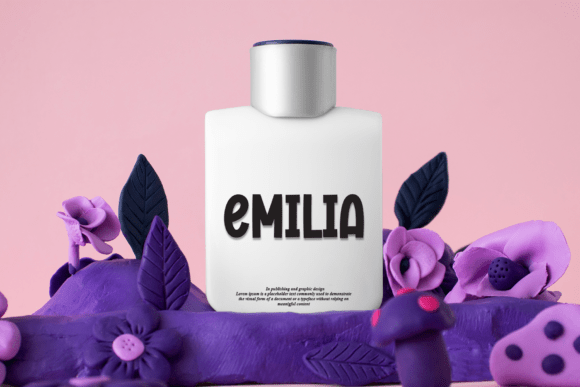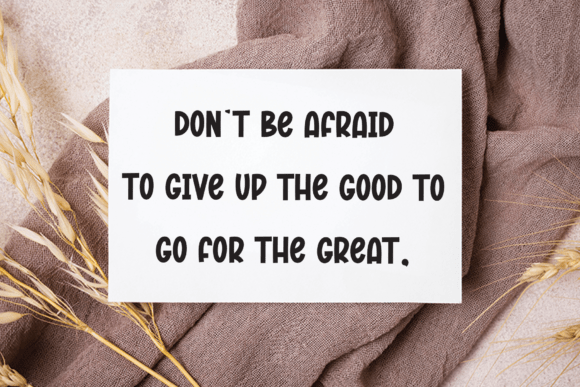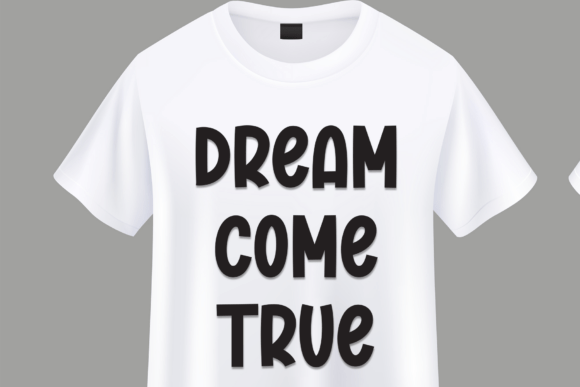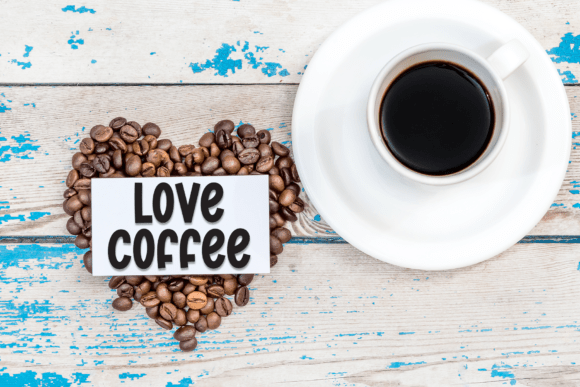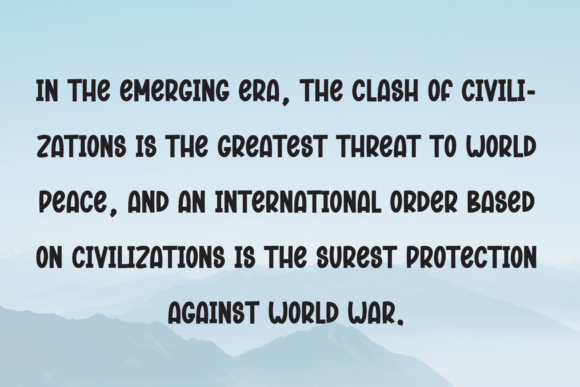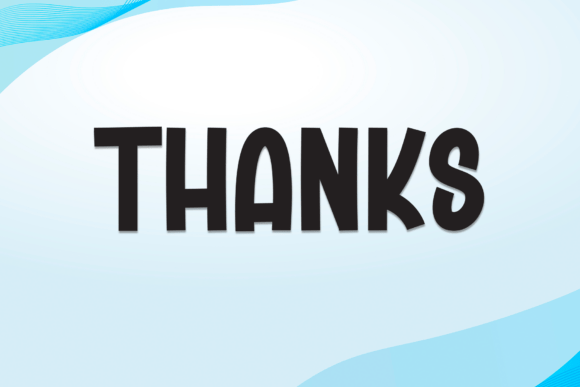
Introduction to Display Alphabet Font
Have you ever found yourself rummaging through your design stash, searching for the perfect font to elevate your next creative project? I’m sure we’ve all been there. For designers, the hunt for the perfect font can be a tedious task, but what if I told you that you’re just one click away from discovering the perfect design resource?
That’s where the Display Alphabet Font comes in – a stunning, free download that’s about to revolutionize your design game. With its natural, unique style, this font is an absolute game-changer, allowing you to unleash your creativity and bring your ideas to life in high-quality, visually stunning ways.
Whether you’re working on a design project that requires a friendly, approachable tone or something more elegant and sophisticated, the Display Alphabet Font is the perfect companion. Plus, with its transparent background, you can seamlessly integrate it into your design without any distractions. Get ready to take your designs to the next level with this incredible display font!
Key Features of Display Alphabet Font
- High-quality display font designed for creative projects, ideal for use in graphic design, digital art, and typography.
- Transparent background, making it easy to layer and combine with other design elements in your creative project.
- Includes a comprehensive set of uppercase and lowercase letters, numerals, and punctuation marks, ensuring you have everything you need for your design resource.
- Resolution-independent, ensuring crisp and clear text at any resolution, from low-resolution web graphics to high-resolution print materials.
- Perfect for use in a variety of creative contexts, from digital displays and signage to print materials and merchandise.
Honest Review: Display Alphabet Font
I recently had the chance to work with the Display Alphabet Font, and I must say it’s been a game-changer for my design projects. ✨ This font is perfect for any creative project that requires a bold and eye-catching typography.
- High-quality design: The Display Alphabet Font is incredibly detailed and well-crafted, making it a great addition to any design resource.
- Transparent background: The transparent background option allows for seamless integration with any design element, giving me more creative freedom.
While the Display Alphabet Font is an amazing resource, I do have a few limitations to note: ⚠️ The font is not suitable for small text sizes, and it may not be the best choice for body text. Additionally, the font is quite large in file size, which can be a concern for designers working with limited storage space.
Overall, I’m thoroughly impressed with the Display Alphabet Font. Its high-quality design, free availability, and transparent background make it an excellent choice for any creative project. With a little consideration of its limitations, this font is sure to elevate your designs to the next level.
For optimal results, use the Display Alphabet Font in conjunction with other design elements that complement its unique style. Experiment with different font sizes, colors, and combinations to find the perfect balance for your design.
The Display Alphabet Font is commonly used in creative projects such as graphic design, digital art, and typography. Its unique style and high-quality design make it an excellent choice for designers looking to add a touch of elegance and sophistication to their work.